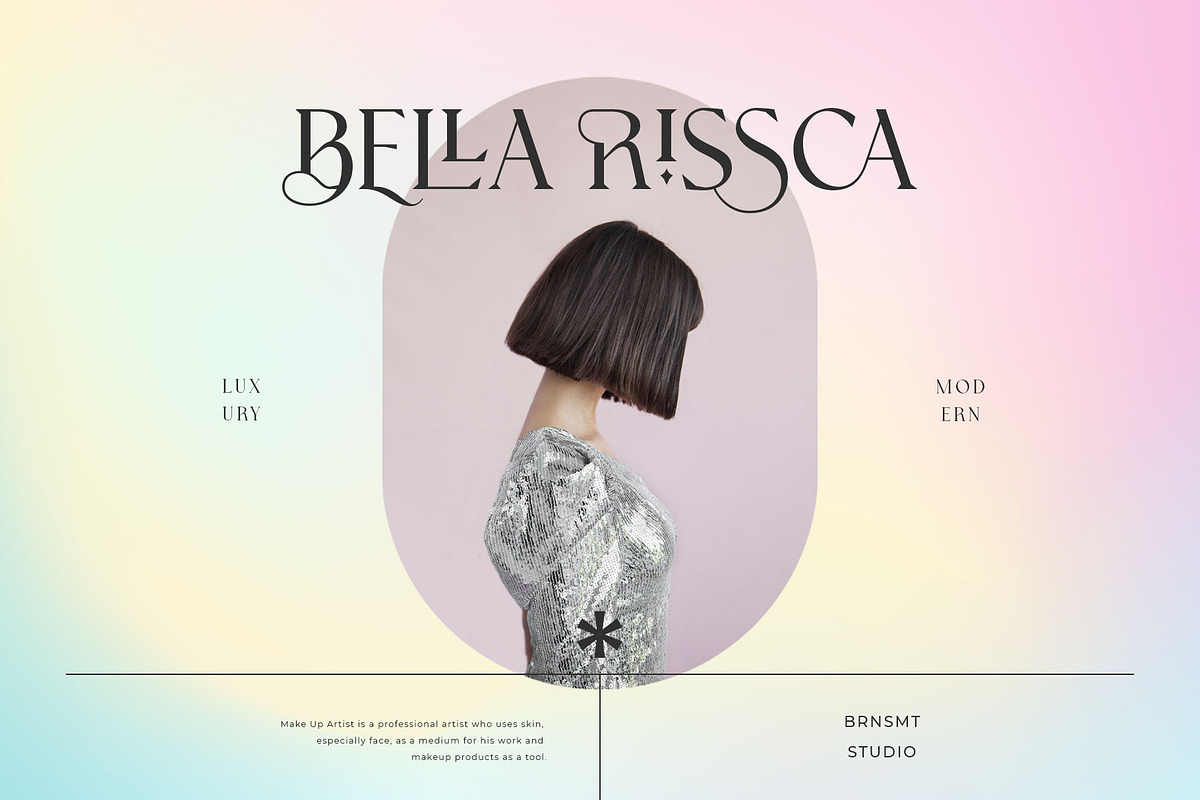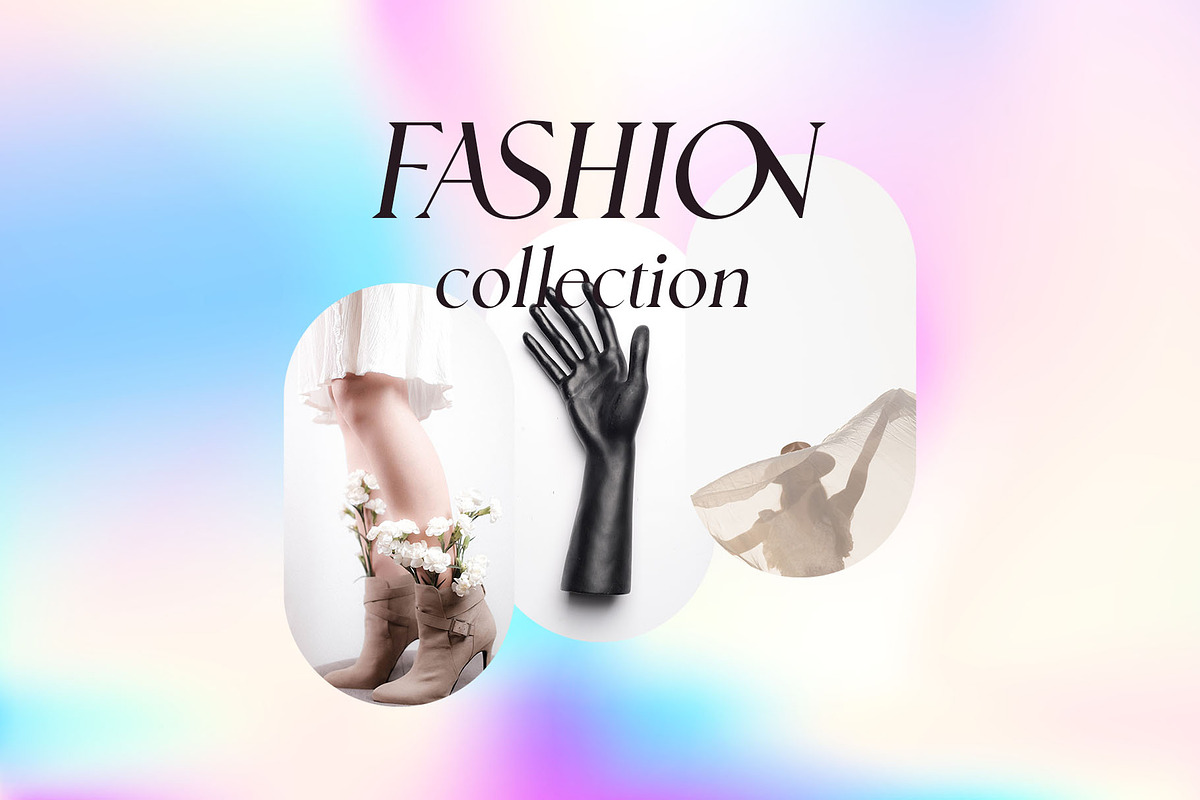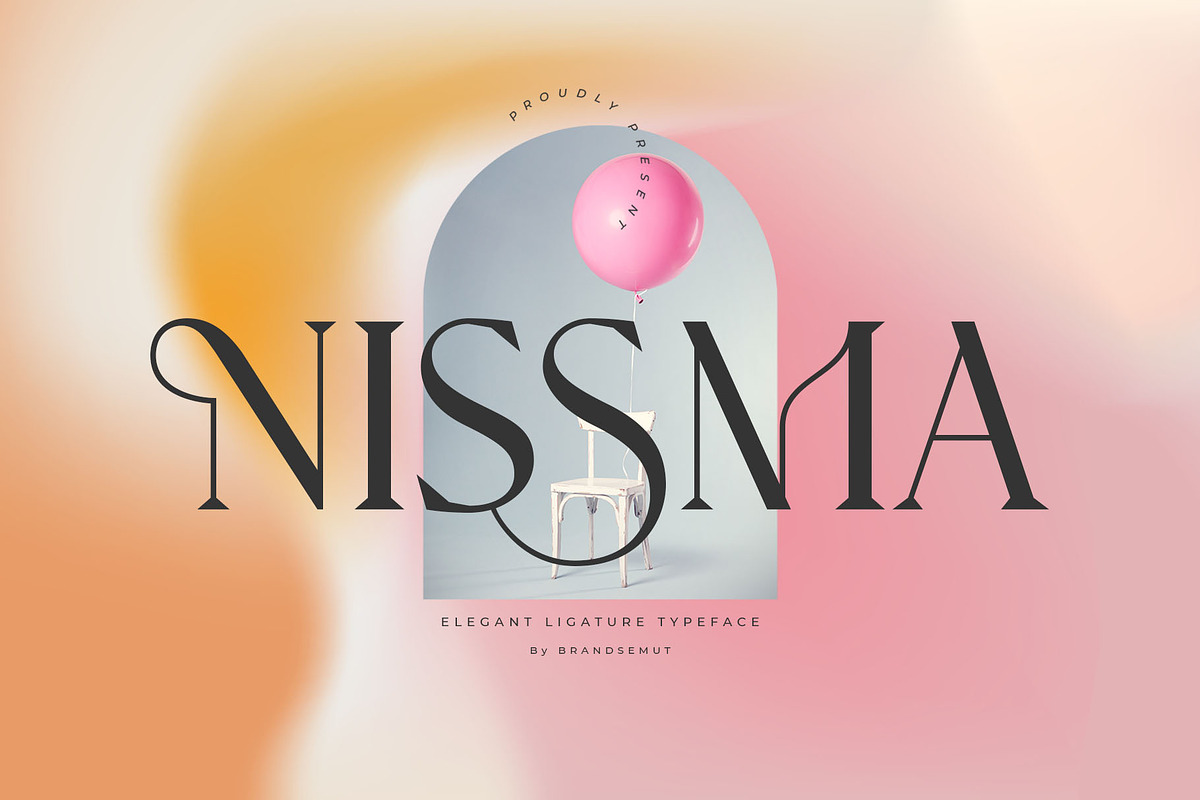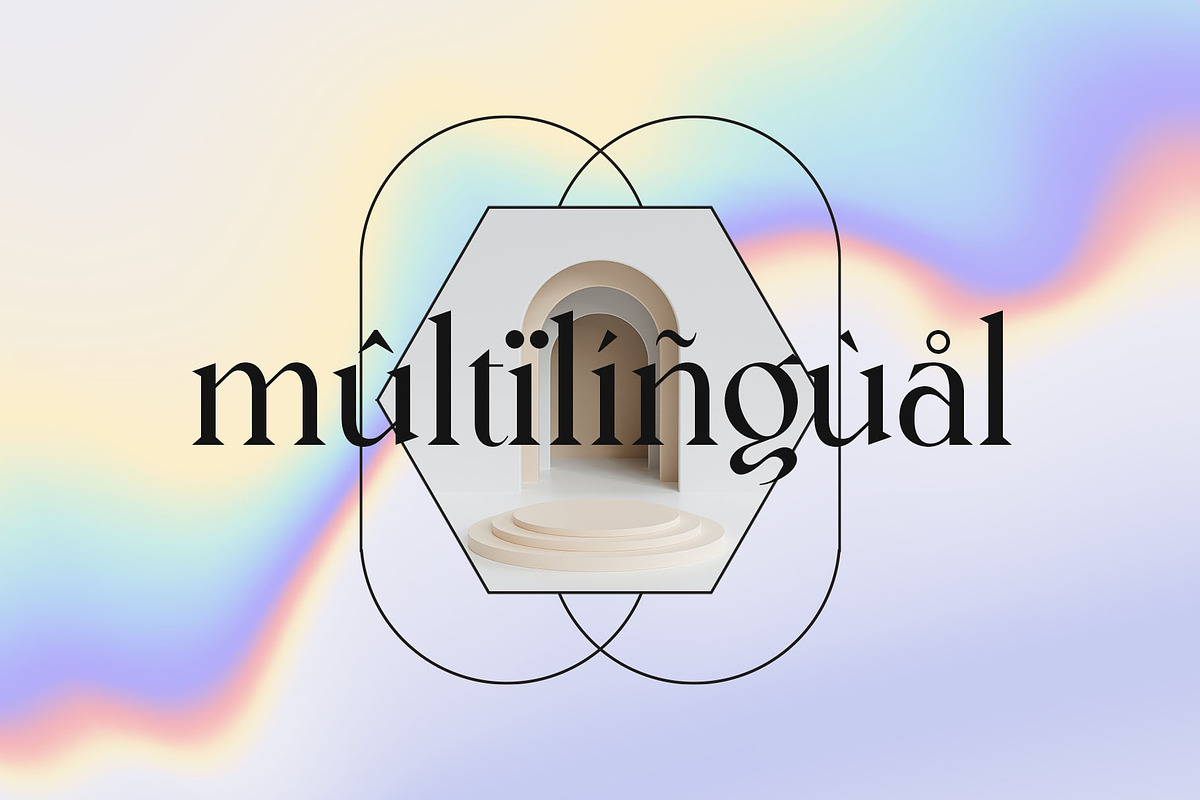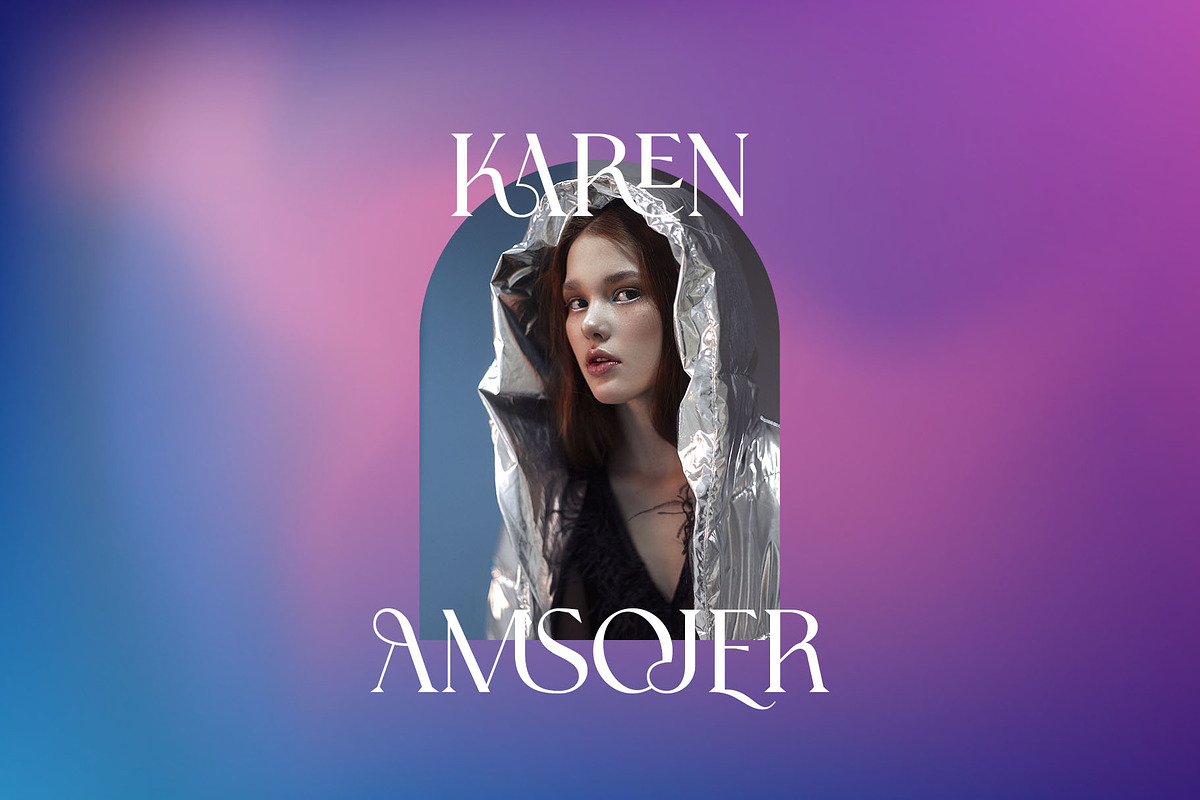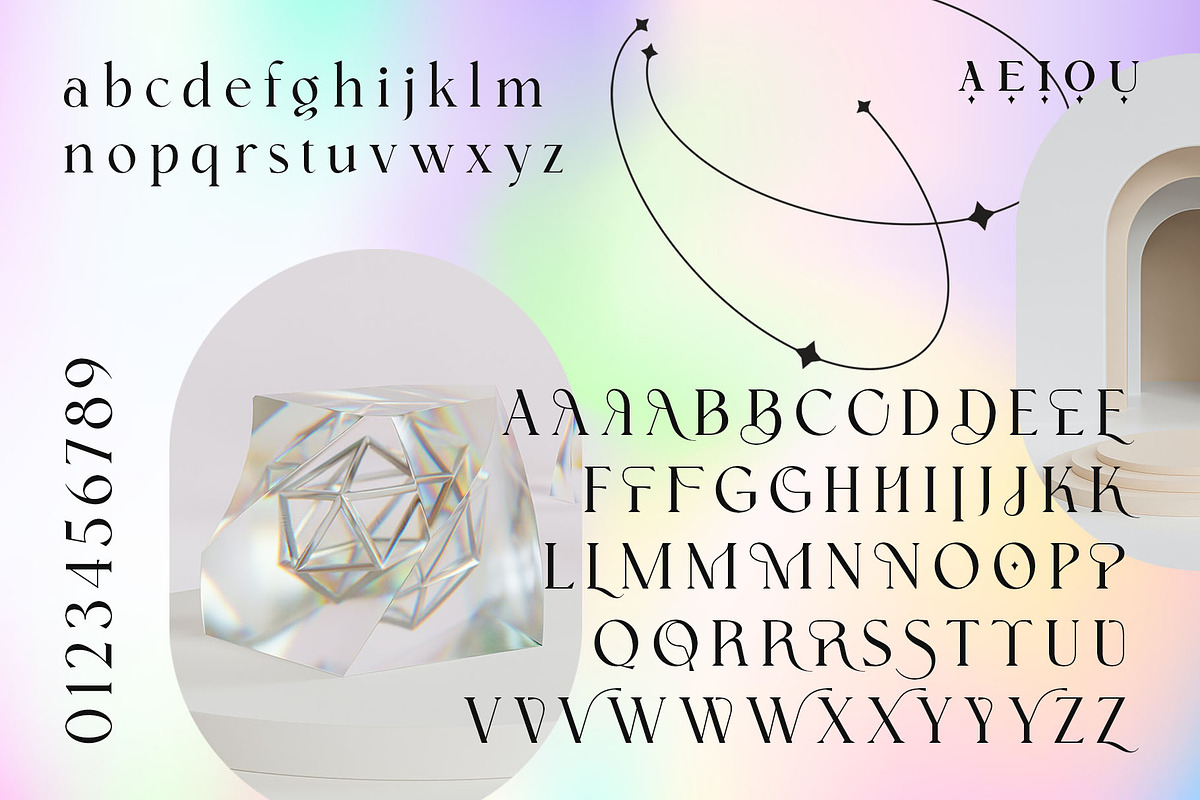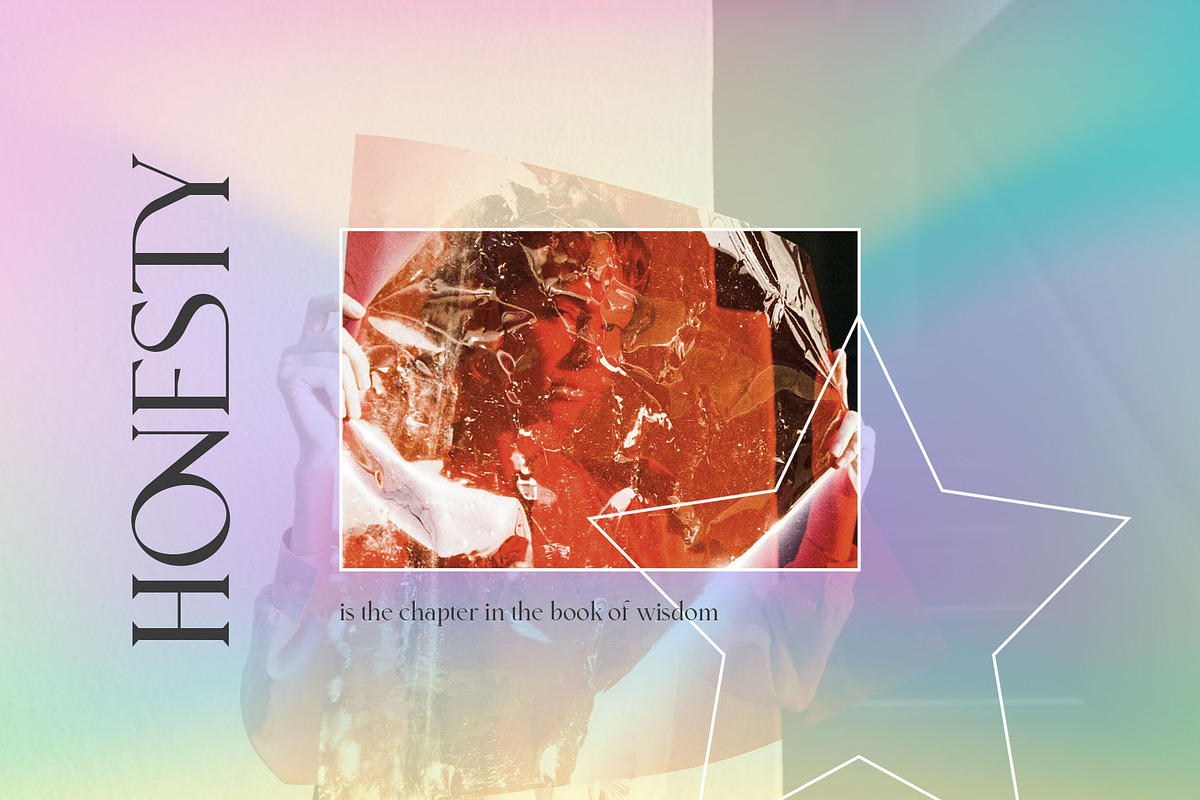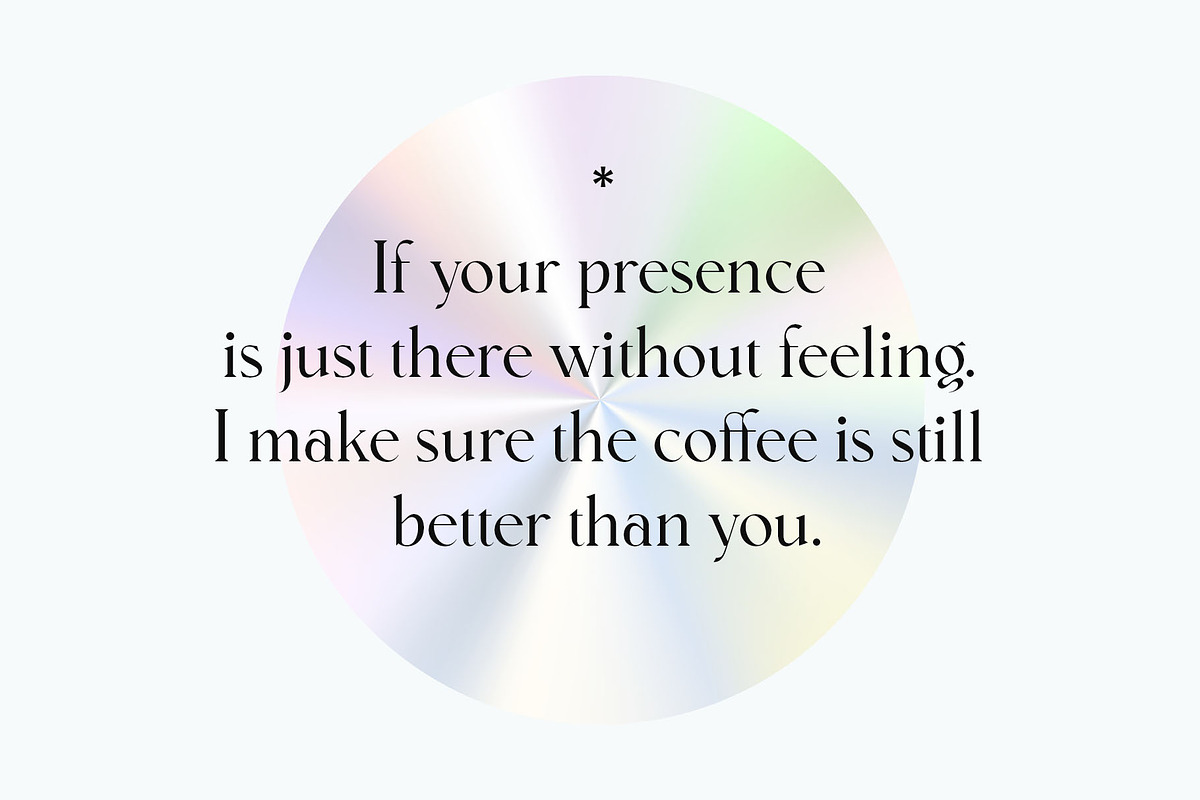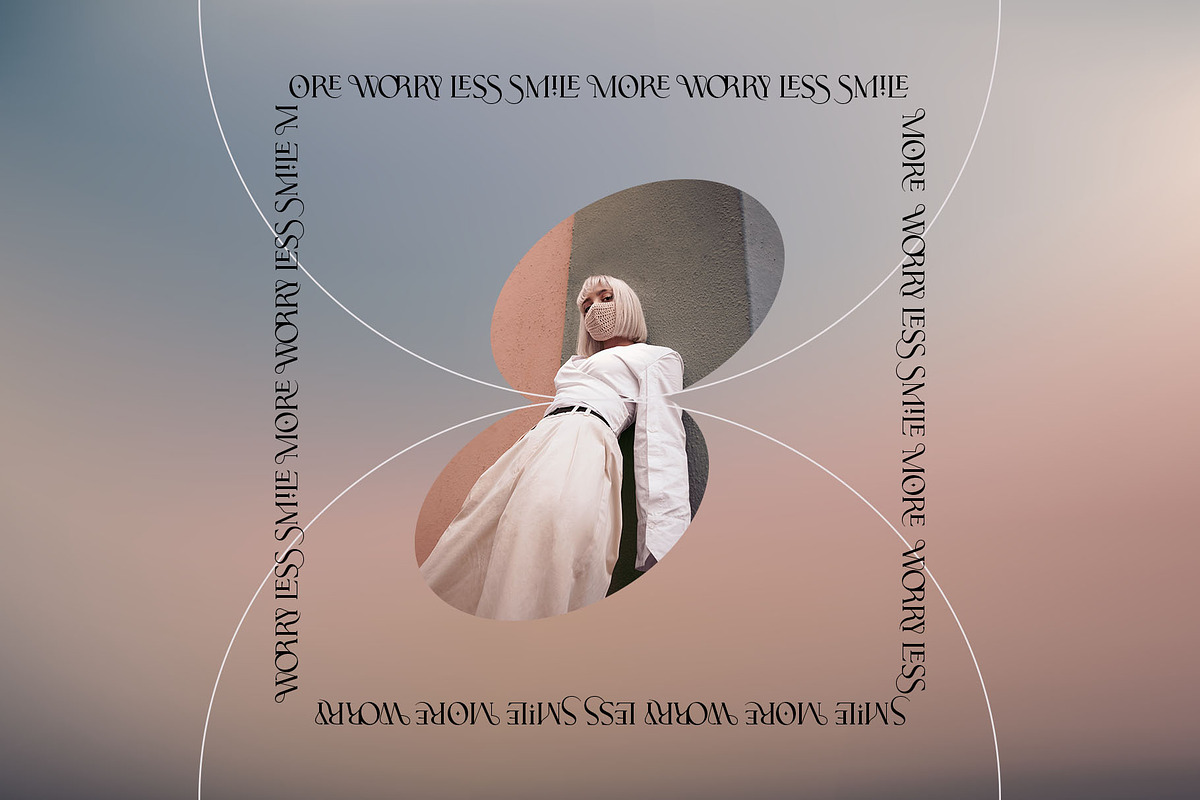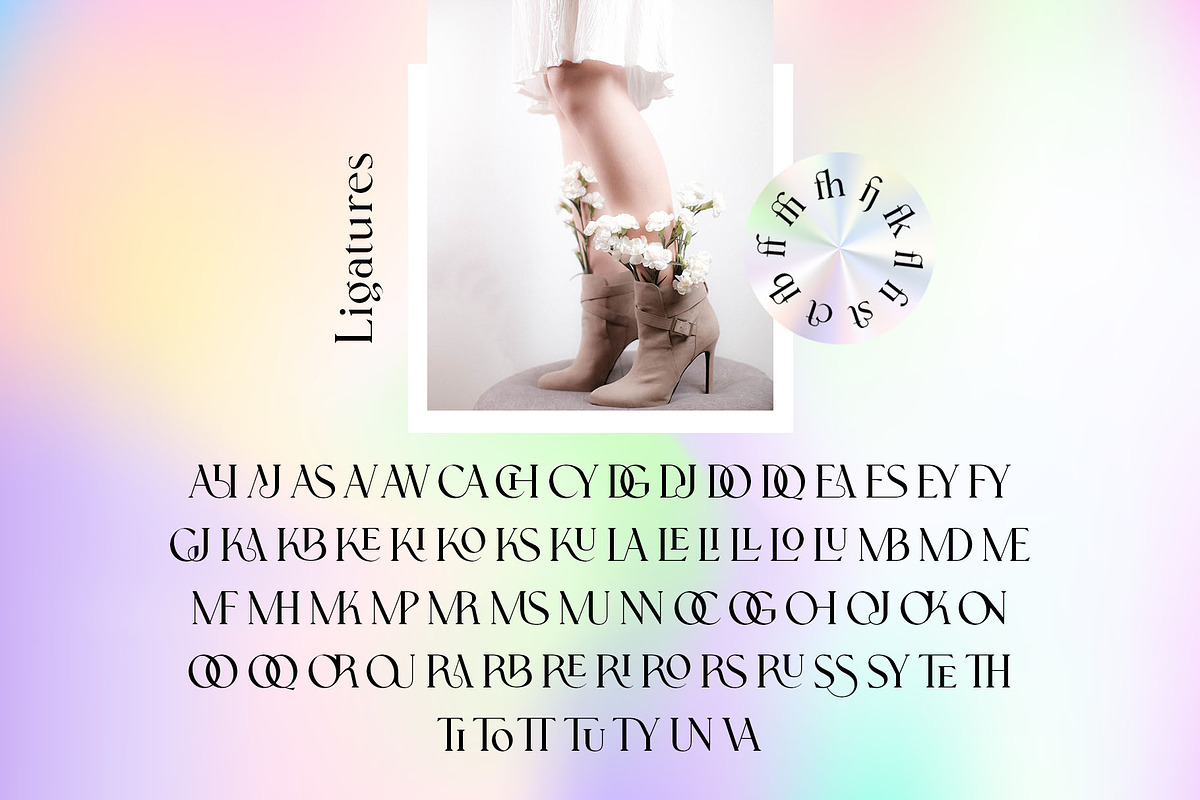
Nissma - Modern Ligature Serif
Introducing our new "NISSMA", Modern ligature typeface with Elegant and Stylish. Is perfect for branding, logos, invitation, master heads, and more.
Nissma Features :
- Multilanguage